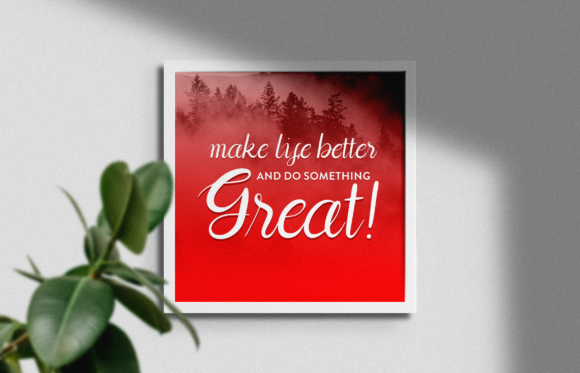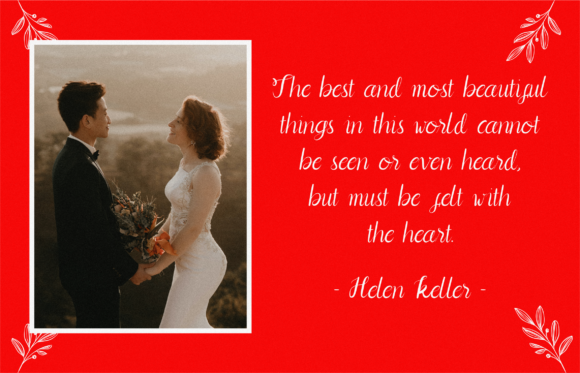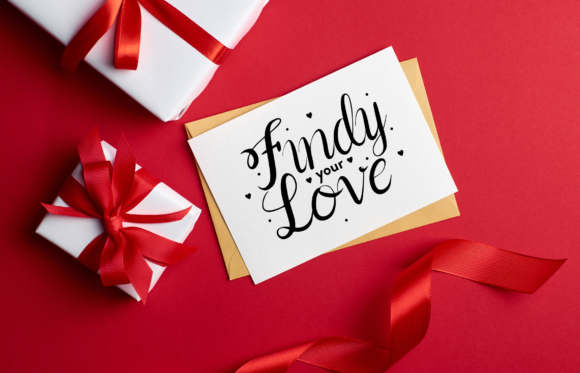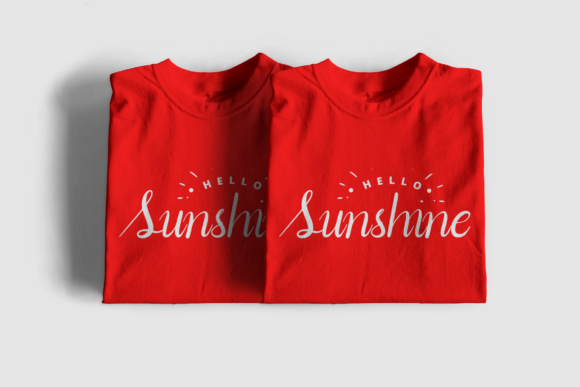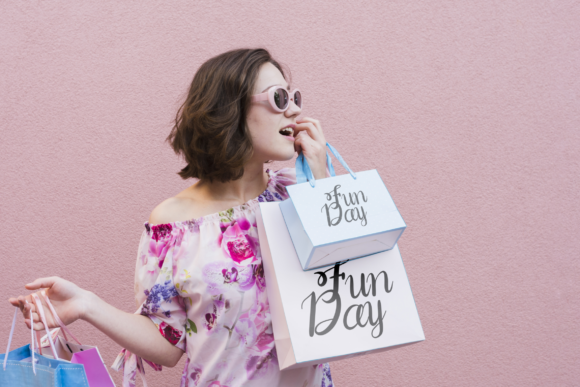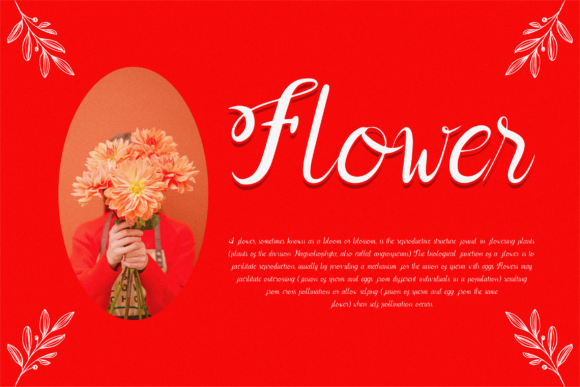
Abeely Belve Font: Elevate Your Designs with Elegance and Sophistication
In the world of typography, few fonts manage to capture the essence of elegance and sophistication as beautifully as Abeely Belve. This delicate, elegant, and flowing handwritten font has been making waves in the design community, and for good reason. With its stunning characters and impeccable balance, Abeely Belve is the perfect addition to any design project, from crafting and stationery to digital media and branding.
The Beauty of Abeely Belve
Abeely Belve’s charm lies in its unique blend of refinement and playfulness. Each character is carefully crafted to exude a sense of luxury and poise, making it an excellent choice for designers and crafters looking to add a touch of sophistication to their work. The font’s flowing lines and curves create a sense of movement and fluidity, giving it a dynamic and eye-catching quality that is sure to captivate audiences.
One of the standout features of Abeely Belve is its incredible versatility. This font is designed to complement a wide range of designs, from modern and minimalist to vintage and ornate. Whether you’re creating a wedding invitation, a fashion brand logo, or a social media graphic, Abeely Belve’s elegant style and balanced characters ensure that it will seamlessly integrate into your project and elevate its overall aesthetic.
Why Designers and Crafters Love Abeely Belve
So, what makes Abeely Belve a favorite among designers and crafters? Here are just a few reasons:
- Elegant and sophisticated: Abeely Belve’s refined style adds a touch of luxury to any design project.
- Versatile: This font pairs well with a wide range of designs, making it a great addition to any design library.
- Easy to read: Despite its elegant style, Abeely Belve remains highly legible, even at smaller font sizes.
- Unique: With its flowing lines and curves, Abeely Belve stands out from more traditional fonts, giving your designs a distinctive edge.
Tips for Using Abeely Belve in Your Designs
To get the most out of Abeely Belve, here are a few tips to keep in mind:
- Pair it with contrasting fonts: Combine Abeely Belve with bold, sans-serif fonts to create visual interest and hierarchy.
- Experiment with colors: Abeely Belve looks stunning in a range of colors, from soft pastels to rich jewel tones.
- Play with sizes: Use Abeely Belve in a variety of sizes to create visual flow and emphasis.
- Don’t be afraid to get creative: Abeely Belve is a versatile font that can be used in a wide range of design applications, from digital media to print materials.
In conclusion, Abeely Belve is a truly exceptional font that deserves a spot in every designer’s library. Its elegant style, versatility, and unique charm make it the perfect choice for a wide range of design projects. Whether you’re a seasoned designer or a crafty DIY enthusiast, Abeely Belve is sure to inspire and elevate your work. So why wait? Fall in love with Abeely Belve’s ravishing style and start creating gorgeous projects today!